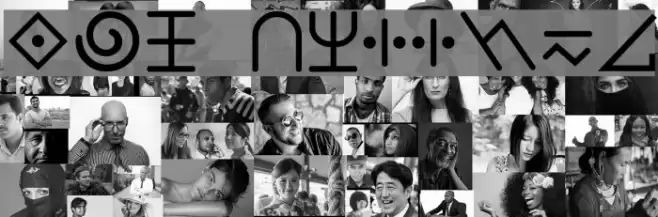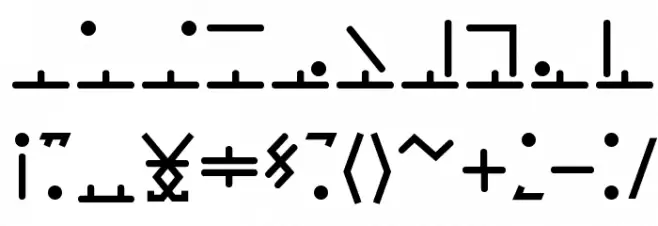
The Calling Font
The Calling Description
This font features a highly decorative and abstract design, reminiscent of ancient symbols or futuristic scripts. Each character is uniquely crafted with geometric shapes, lines, and dots, creating a mysterious and enigmatic appearance. The design is bold and eye-catching, making it suitable for projects that require a distinctive and unconventional look. The characters are evenly spaced, with a consistent stroke thickness that adds to the uniformity of the design. This font is not suitable for body text due to its complex and ornate style, but it excels in creating impactful headlines or artistic designs.
A decorative and abstract font with geometric and symbolic characters from Uncategorized fonts.
- Proposed Projects: Ideal for sci-fi themed designs, video game graphics, movie posters, or any project requiring a unique and artistic typeface.
- Overall Style: Futuristic, Abstract, Artistic
- Use Case: Headlines, Logos, Artistic designs